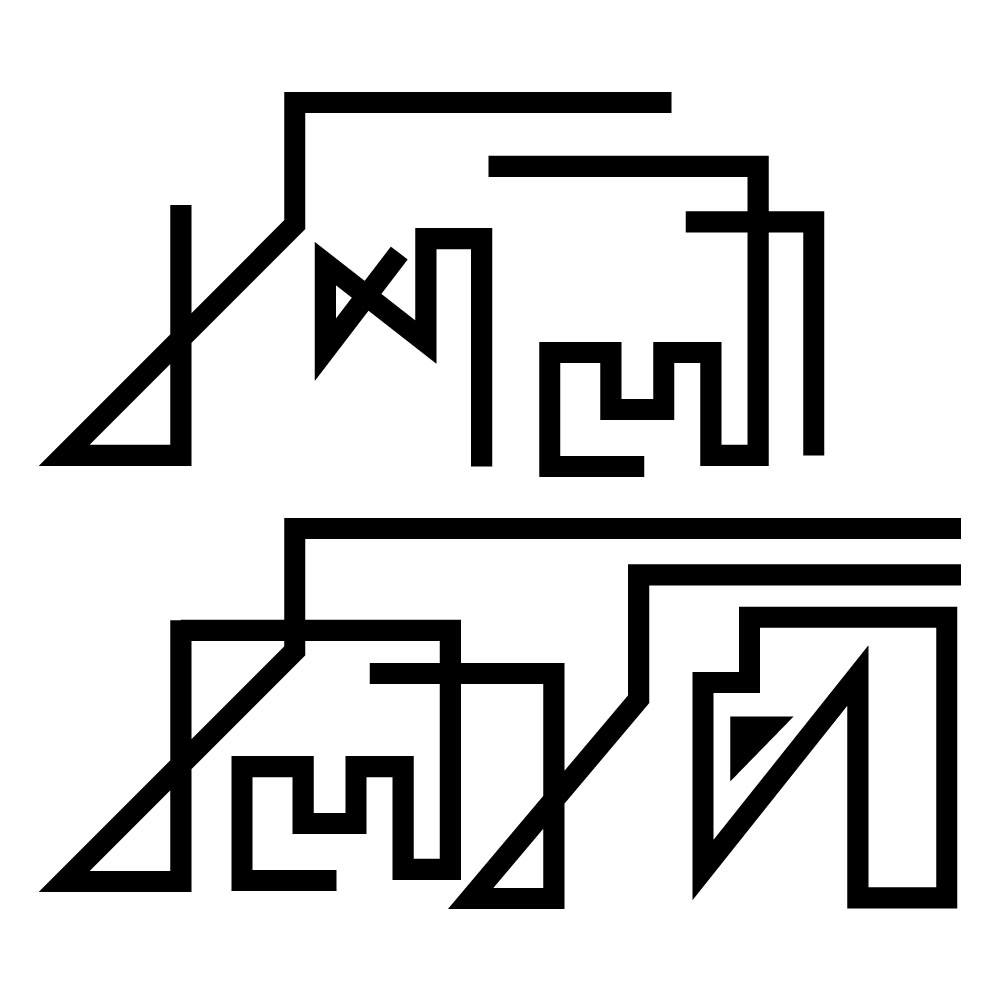
কাইয়ুম স্মৃতি
Pen Stroke Thin
Pen Stroke
Regular
Qayyum Smriti is a tribute font crafted by Shilalipi Font Foundry, inspired by the timeless handwriting of one of Bangladesh’s most beloved artists and calligraphers, Qayyum Chowdhury. His signature style is celebrated as a symbol of artistic excellence. Even after his passing, this font preserves the spirit of his iconic hand, allowing it to live on through letters. Created with deep respect and admiration, Kaiyum Smriti is freely available for all, as a lasting homage to his legacy.